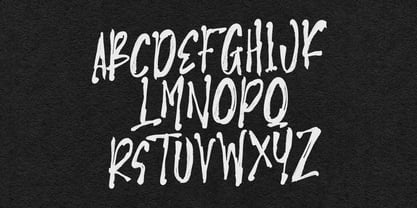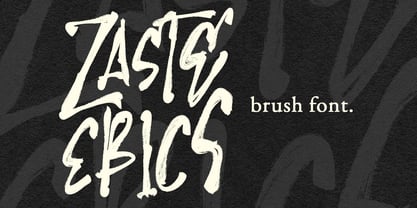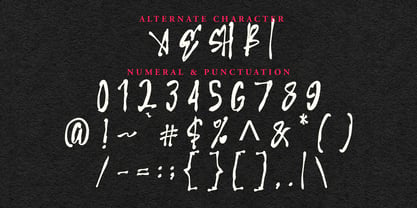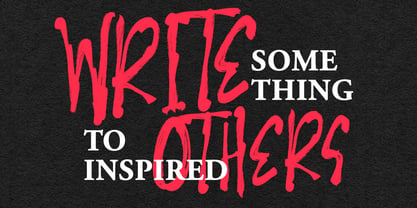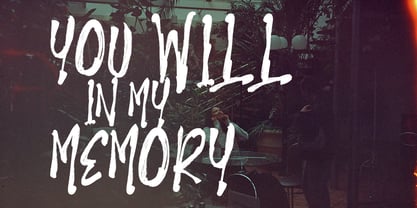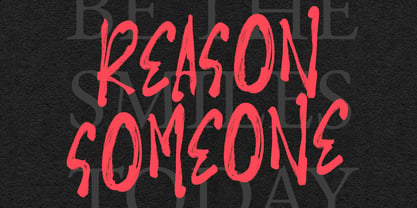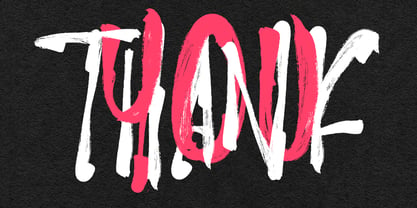
MC Zaste Ebics
by Maulana Creative
The MC Zaste Ebics Font Family was designed by Gilang Maulana and published by Maulana Creative. MC Zaste Ebics contains 1 styles. More about this family
Give your designs an authentic brush handcrafted feel. "Zaste Ebics Brush Display Font" is perfectly suited to signature, stationery, logo, typography quotes, magazine or book cover, website header, flyer, clothing, branding, packaging design and more.
Designers: Gilang Maulana
Foundry: Maulana Creative